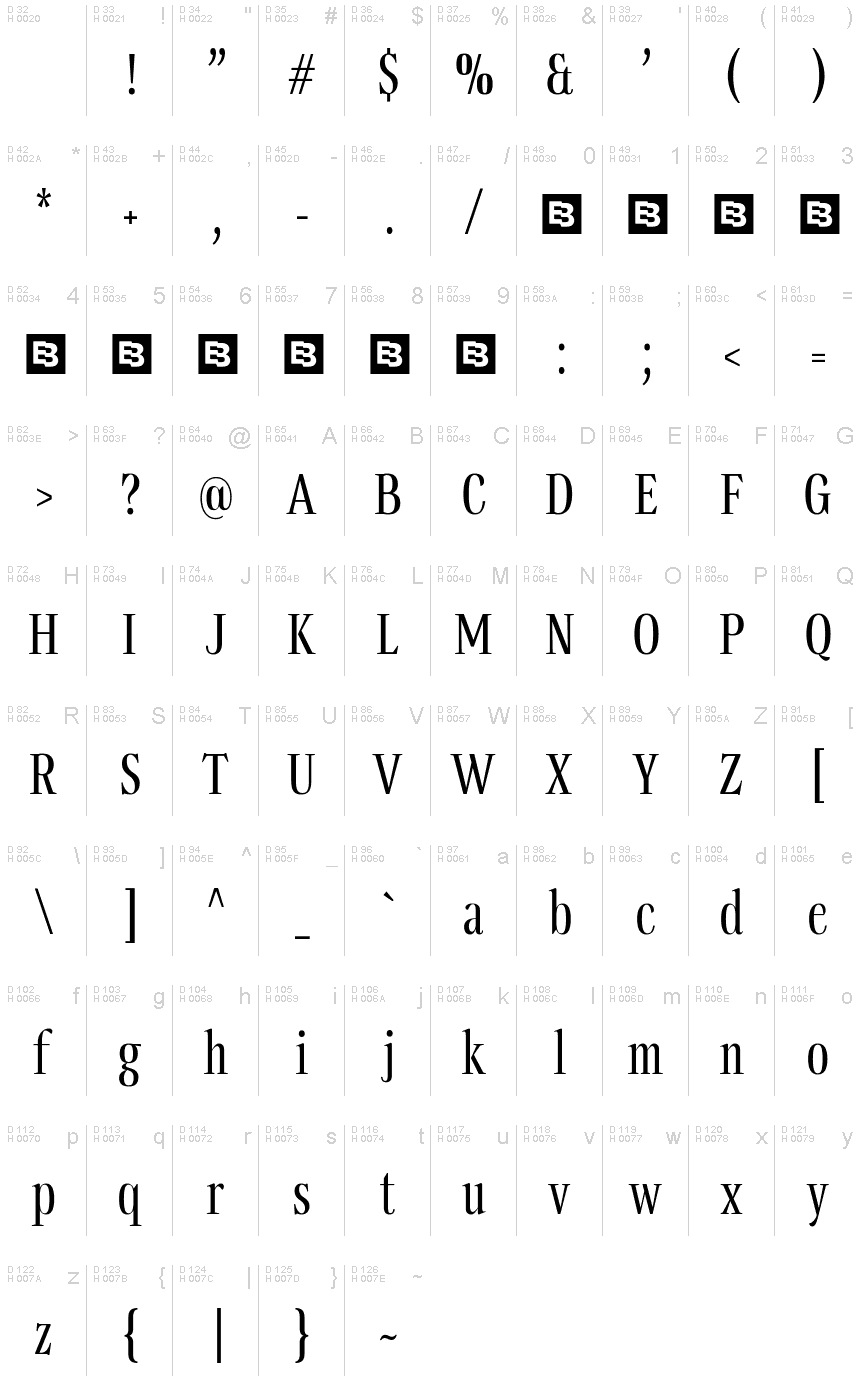
Svelte Trial Regular
Svelte, designed by Eko Bimantara, is a sophisticated serif font with a semi-light weight and an extra-condensed width.
Its elegant and slim letterforms make it perfect for fashion magazines, creating a refined and stylish look. With its clean lines and classic appeal, Svelte is also well-suited for luxury branding projects, exuding an air of exclusivity. This font will elevate any editorial design or book cover with its timeless charm.
Its narrow width makes it ideal for packaging designs where space is limited, adding a touch of sophistication to product labels and tags.